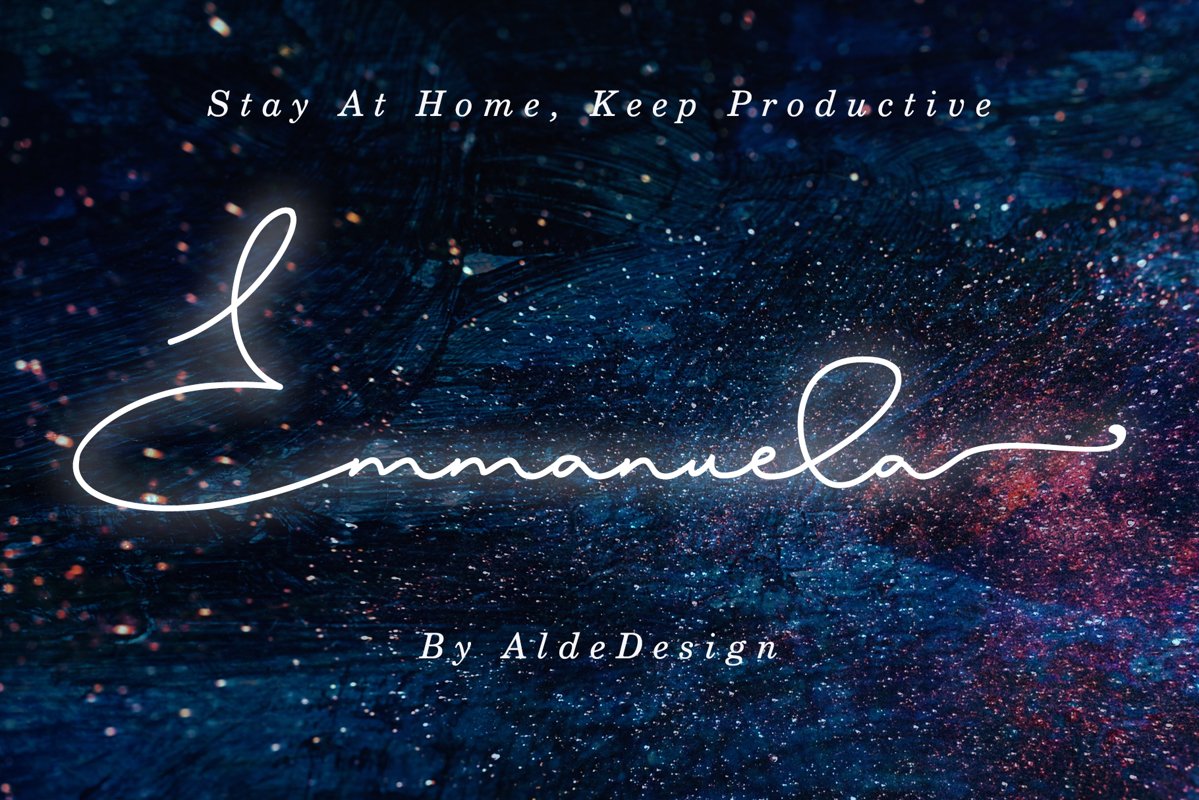
Emmanuella Signature Font
Emmanuela is inspired by classic typography and brings its own unique style to any design project. Use this gorgeous and unique handwritten font to bring any DIY project to life!